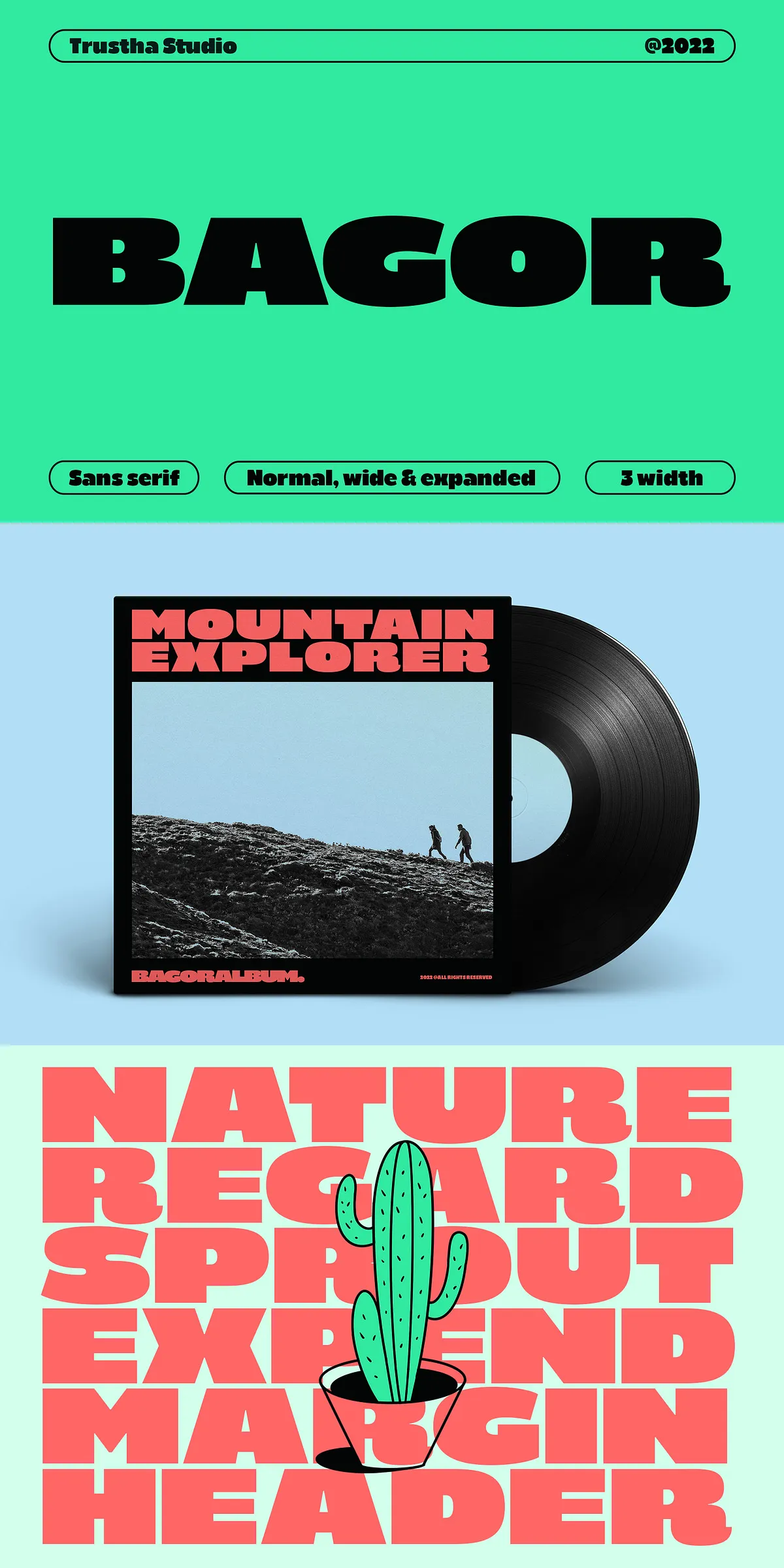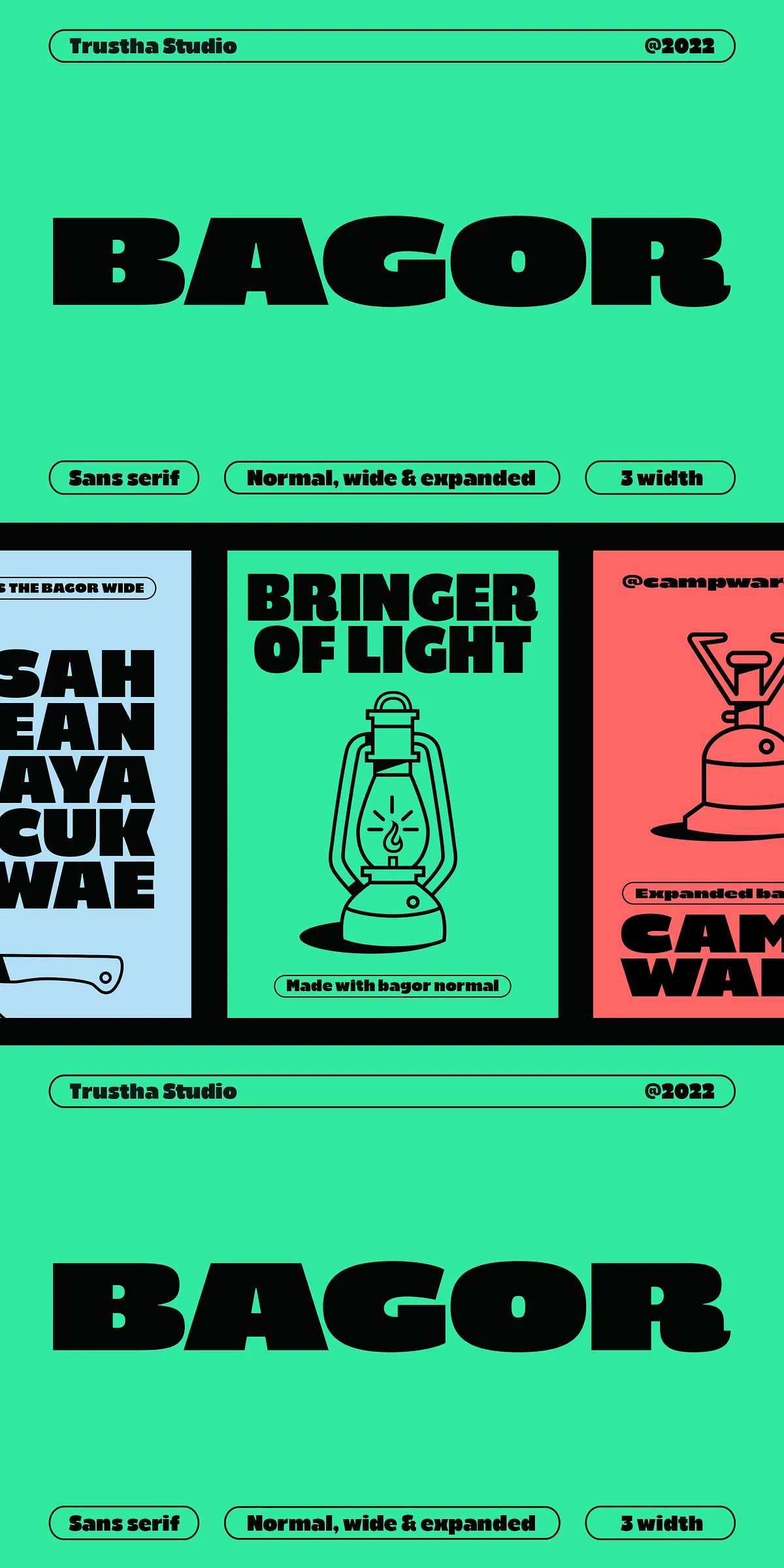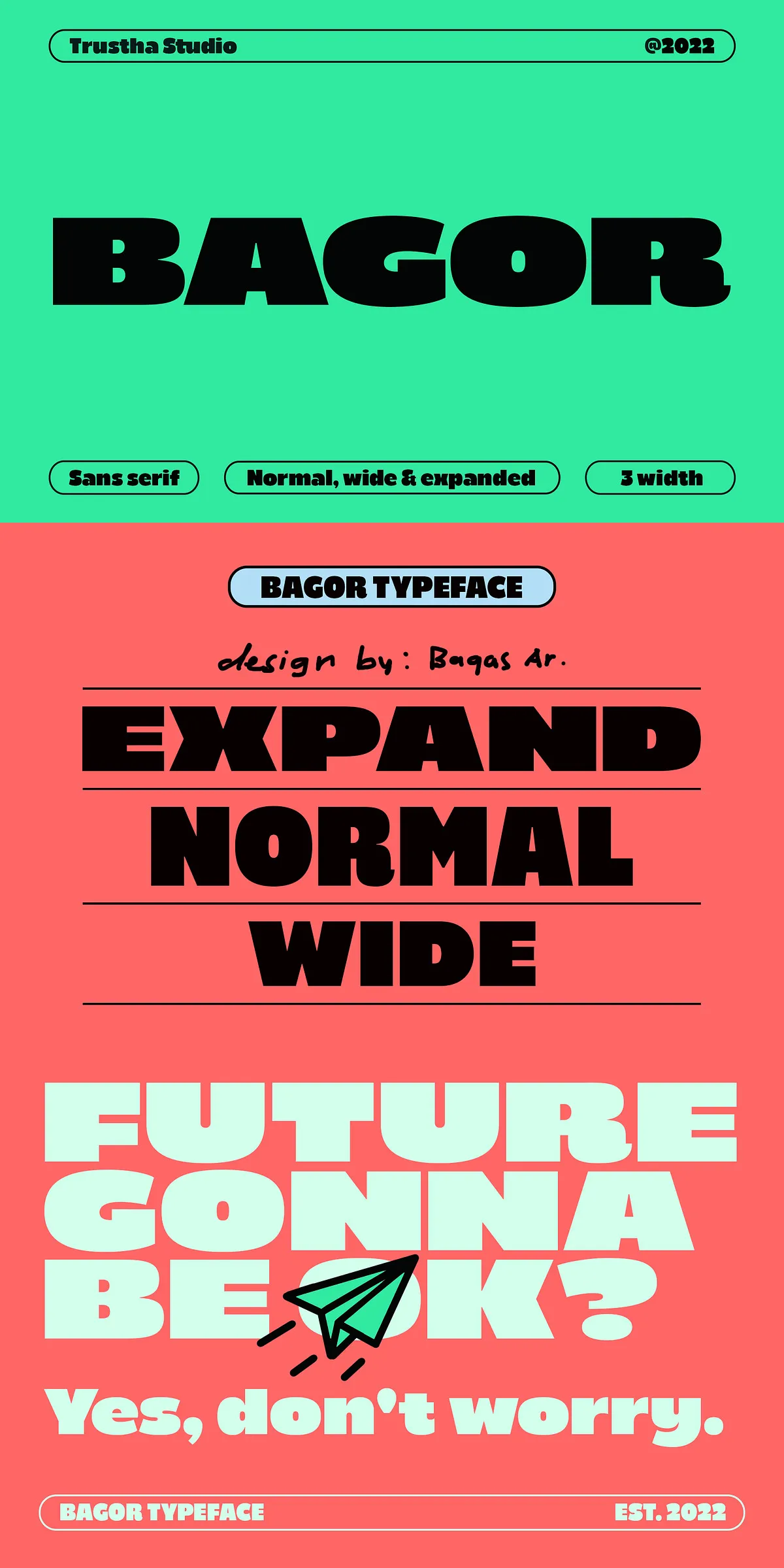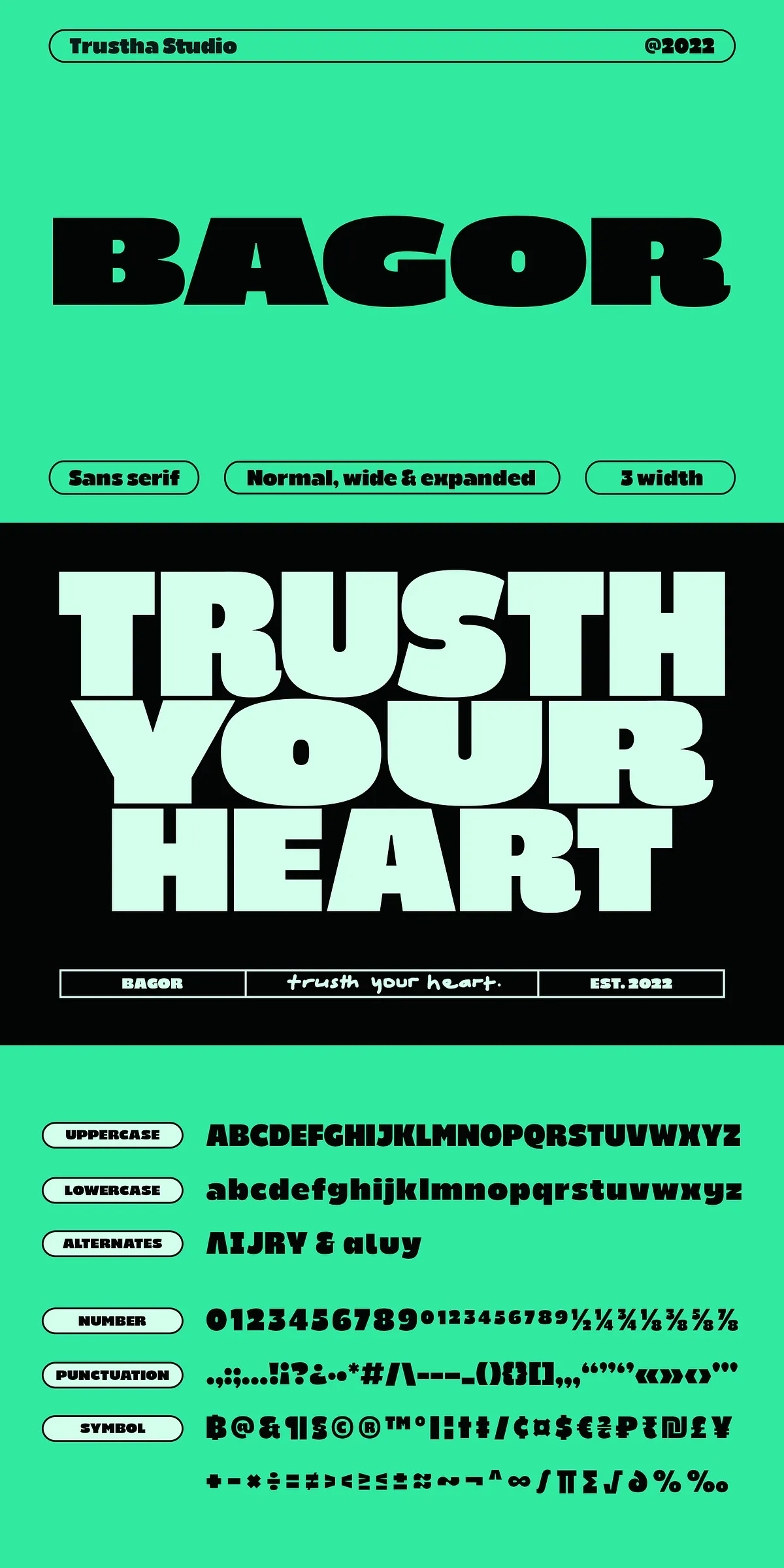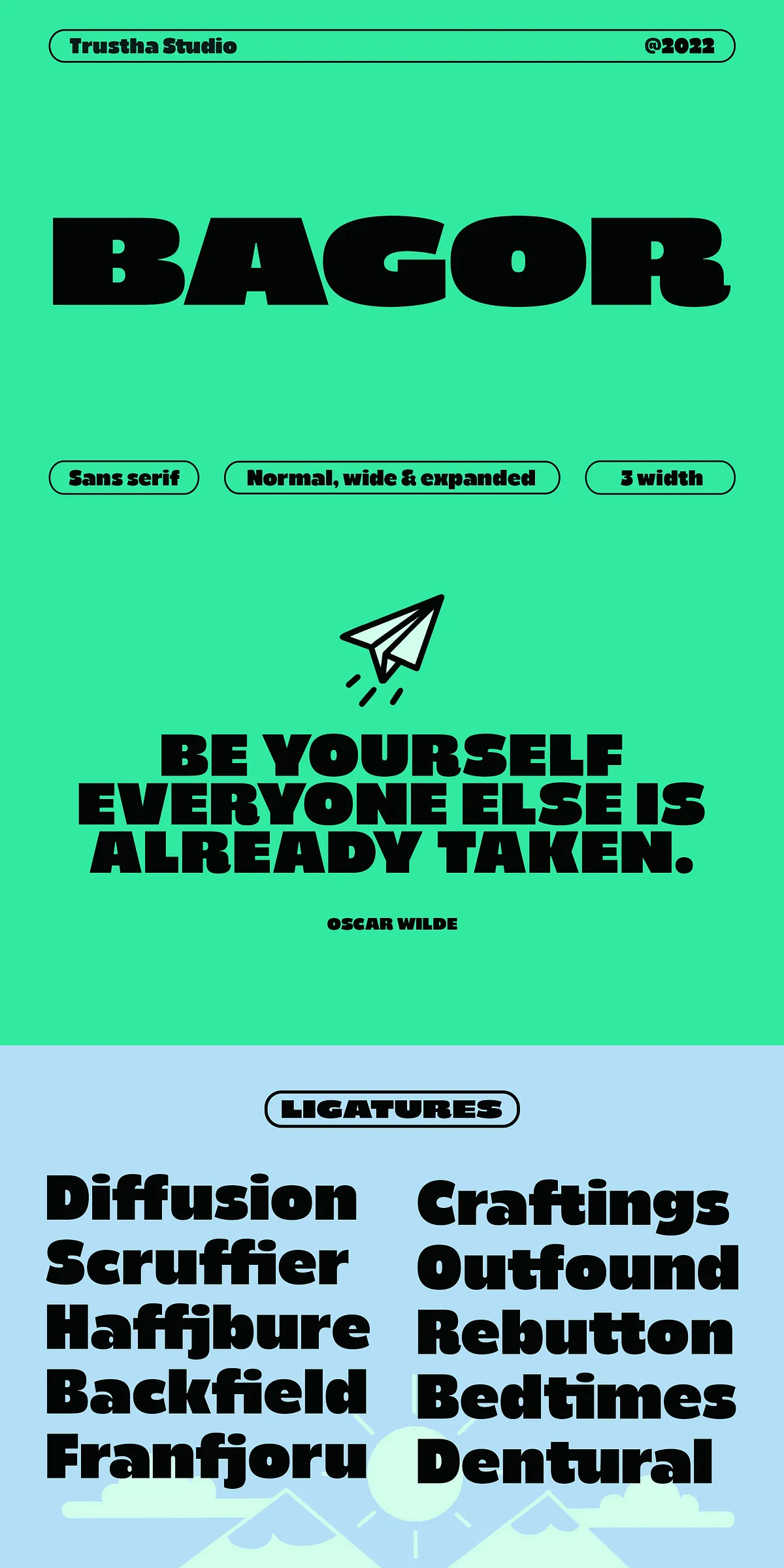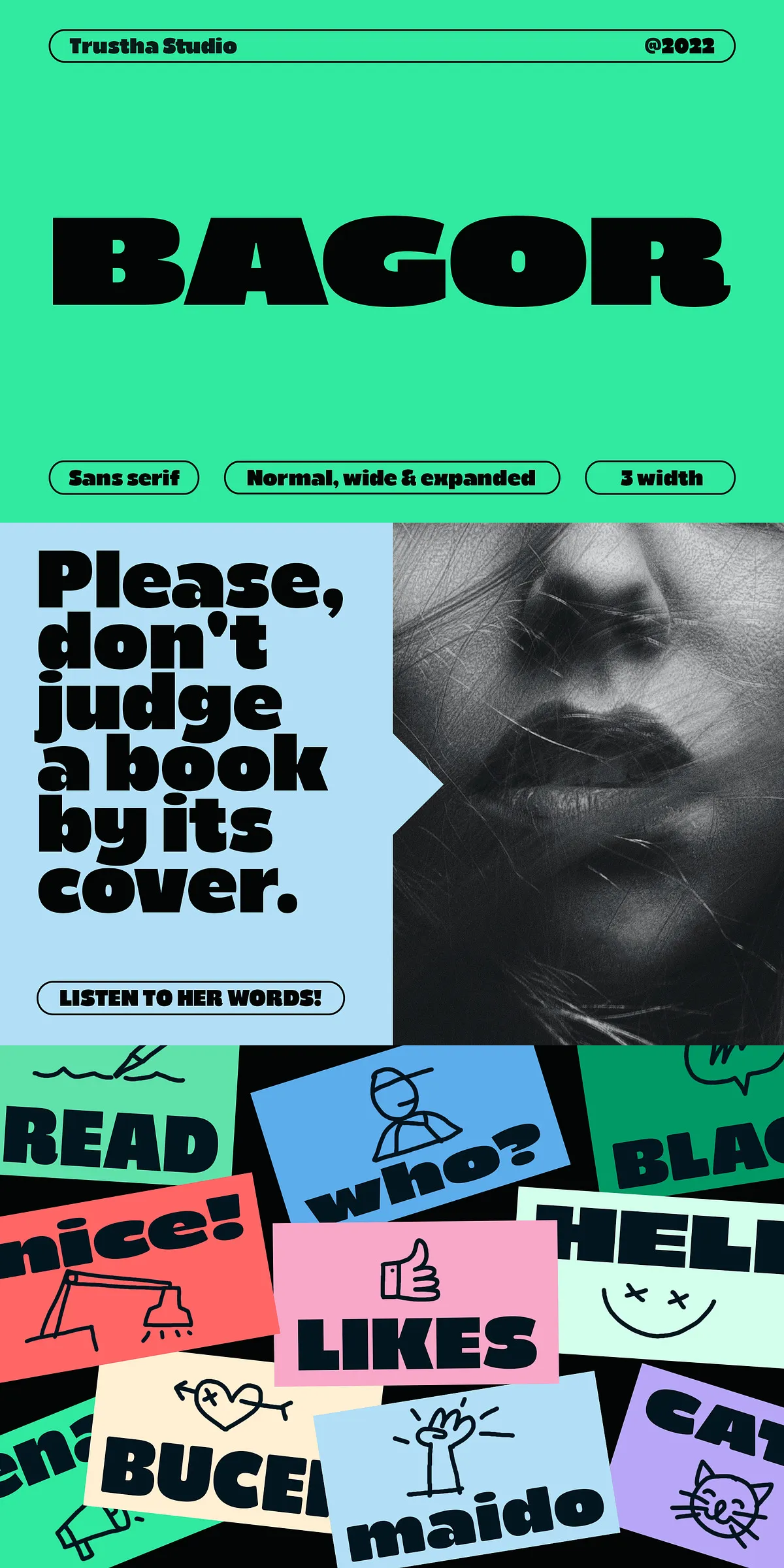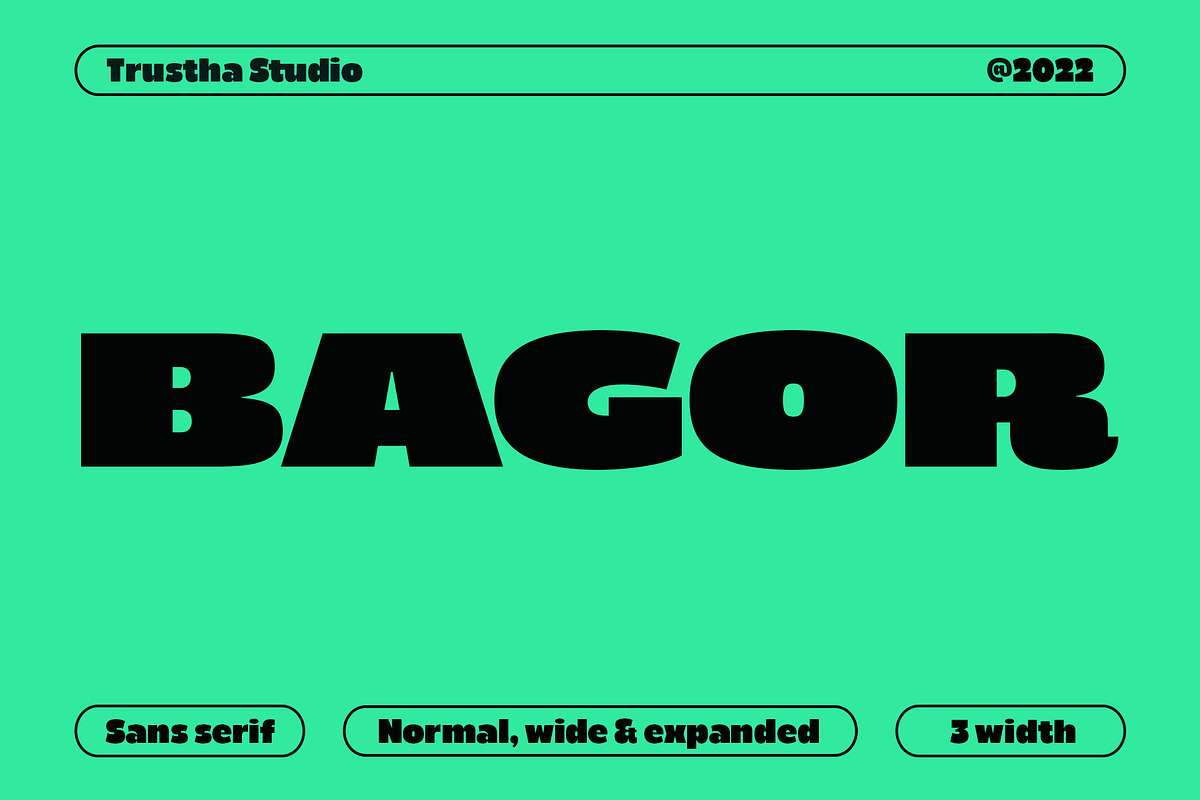
Command attention with Bagor — a heavyweight sans-serif typeface engineered for dominance in headlines, branding, and high-impact visual communication. Built on a foundation of boldness and precision, Bagor turns every word into a statement. Its defining features — a massive x-height and unusually short ascenders — create a dense, solid, and highly legible appearance that cuts through visual noise.
Designed for Maximum Impact: 6 Distinct Styles, Infinite Possibilities
Bagor isn’t one font — it’s a family of six powerful variations, giving you complete creative control over your message:
- Normal – The core weight, optimized for clarity and balance.
- Wide – Expands letterforms horizontally, ideal for bold poster layouts and digital banners.
- Expanded – Stretches characters for maximum width, perfect for wide headers or dramatic signage.
- Rounded Normal, Wide, Expanded – Introduce soft, modern contours that add warmth while preserving the font’s strength.
With this comprehensive range, design with purpose. Use the expanded versions to fill space. Leverage the rounded styles for a friendlier, more contemporary feel. Tailor every element to match your brand’s tone — whether it’s corporate grit, streetwear edge, or minimalist luxury.
The Details That Make a Difference: Ligatures & Alternative Glyphs
Bagor goes beyond basic letterforms with advanced typographic features:
- Ligatures – Clean, custom joins for common character pairs (like “fi”, “fl”, “ff”), ensuring seamless flow and polished appearance.
- Stylistic Sets – Access alternative character shapes on demand, allowing you to fine-tune your look for different contexts.
- Alternative Glyphs – Swap out standard letters for unique variants, adding personality and distinction to your design.
These features aren’t just extras — they’re tools to elevate your work from professional to exceptional. Use them to avoid repetition, enhance rhythm, and create visual interest in long text blocks or multi-line headlines.
Full-Featured & Globally Ready: Multilingual Typography at Your Fingertips
Bagor is built for the world. It supports a vast array of international characters, making it ideal for global branding, multilingual websites, and inclusive design projects.
Use Bagor Everywhere: From Headlines to Brand Identity
Bagor thrives in high-visibility positions:
- Branding & Logos – Create strong, scalable identities that stand out.
- Headlines & Titles – Dominate editorial layouts, magazines, and social media.
- Poster & Billboard Design – Command attention with its dense, compact structure.
- UI/UX & Web Design – Use with confidence in interfaces, buttons, and navigation bars.
- Merchandise & Packaging – Ensure sharp, bold text on t-shirts, boxes, and labels.
Because Bagor is built for impact, it works best when used with intention — not just as text, but as a visual force.